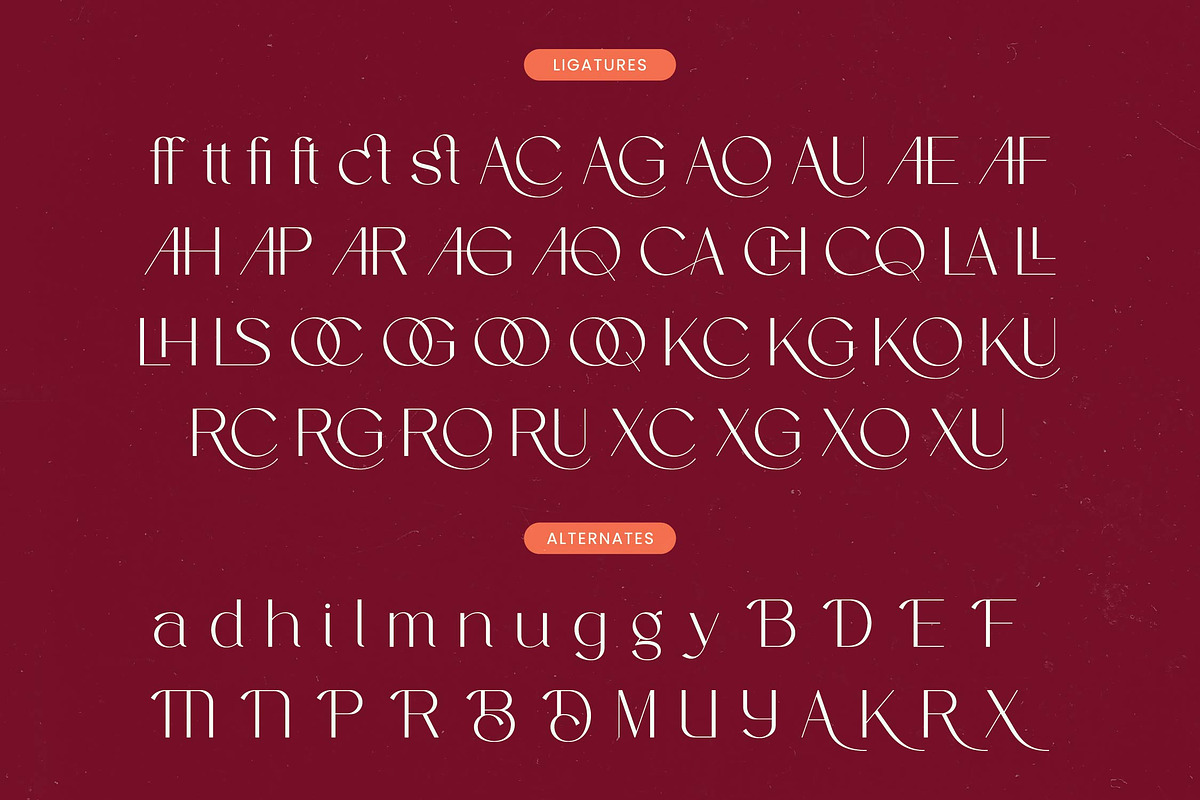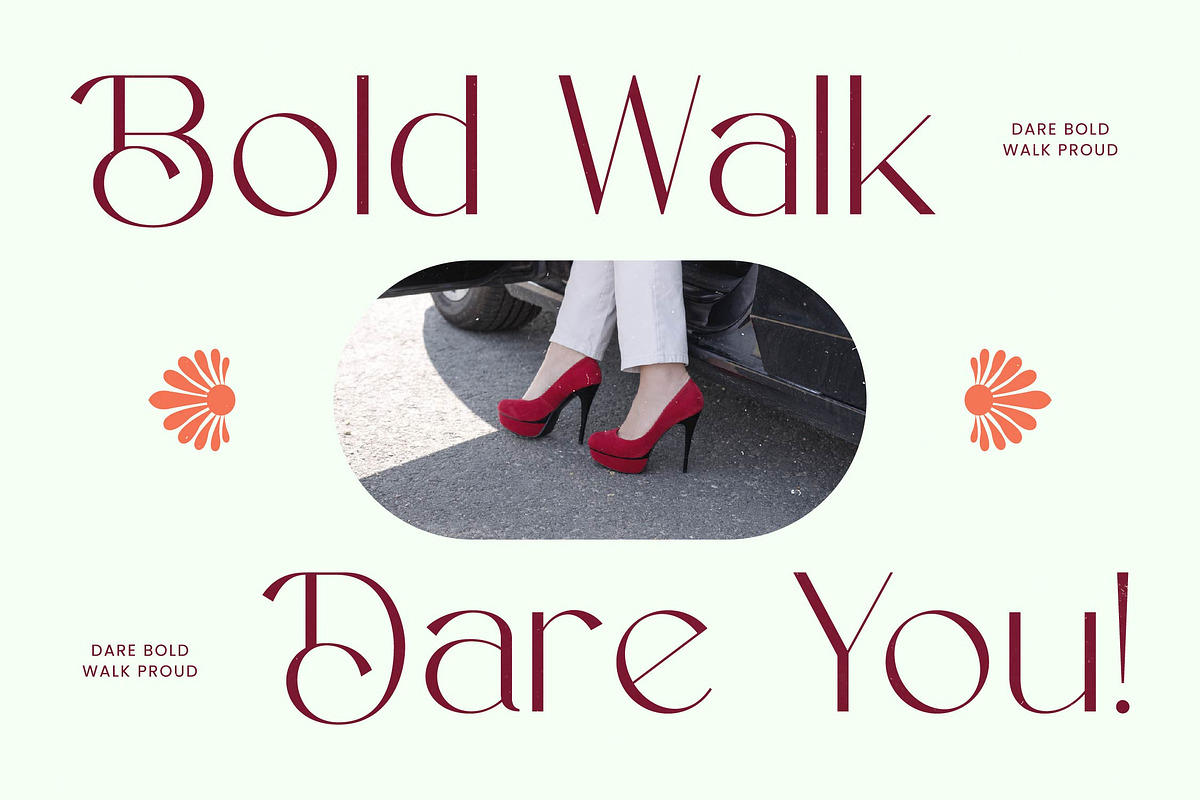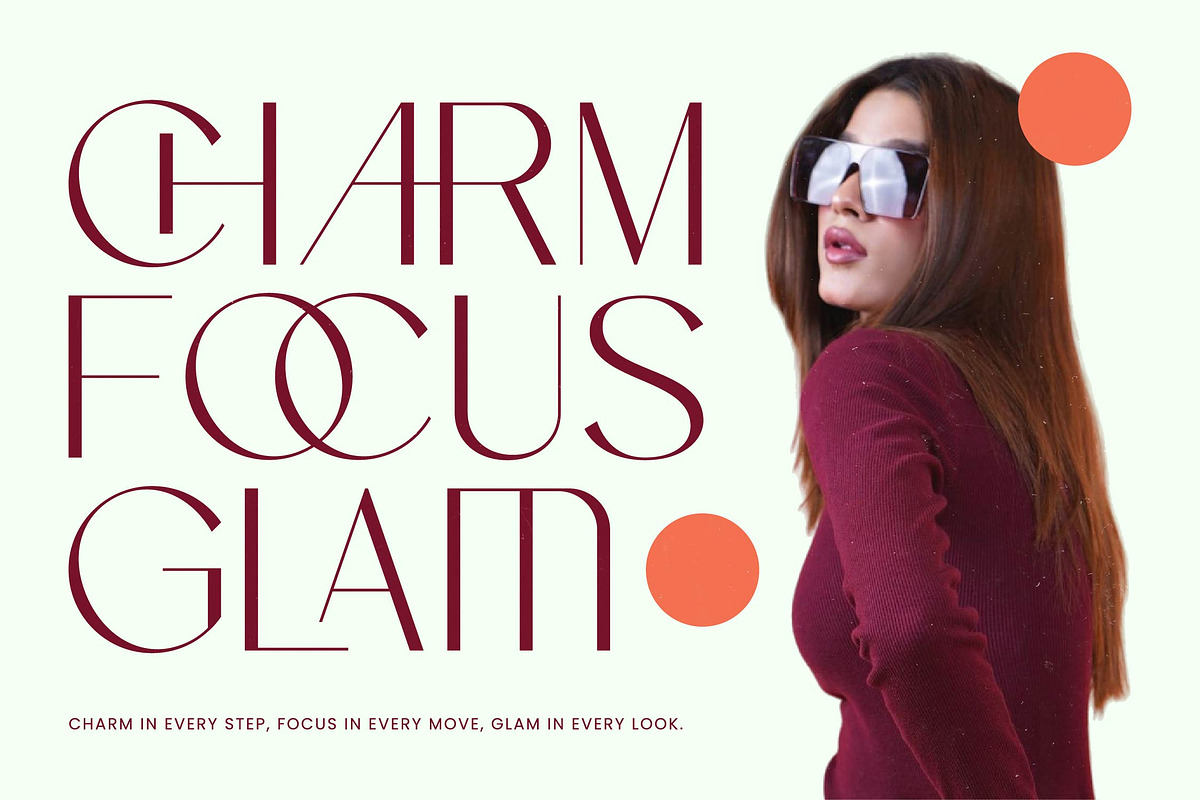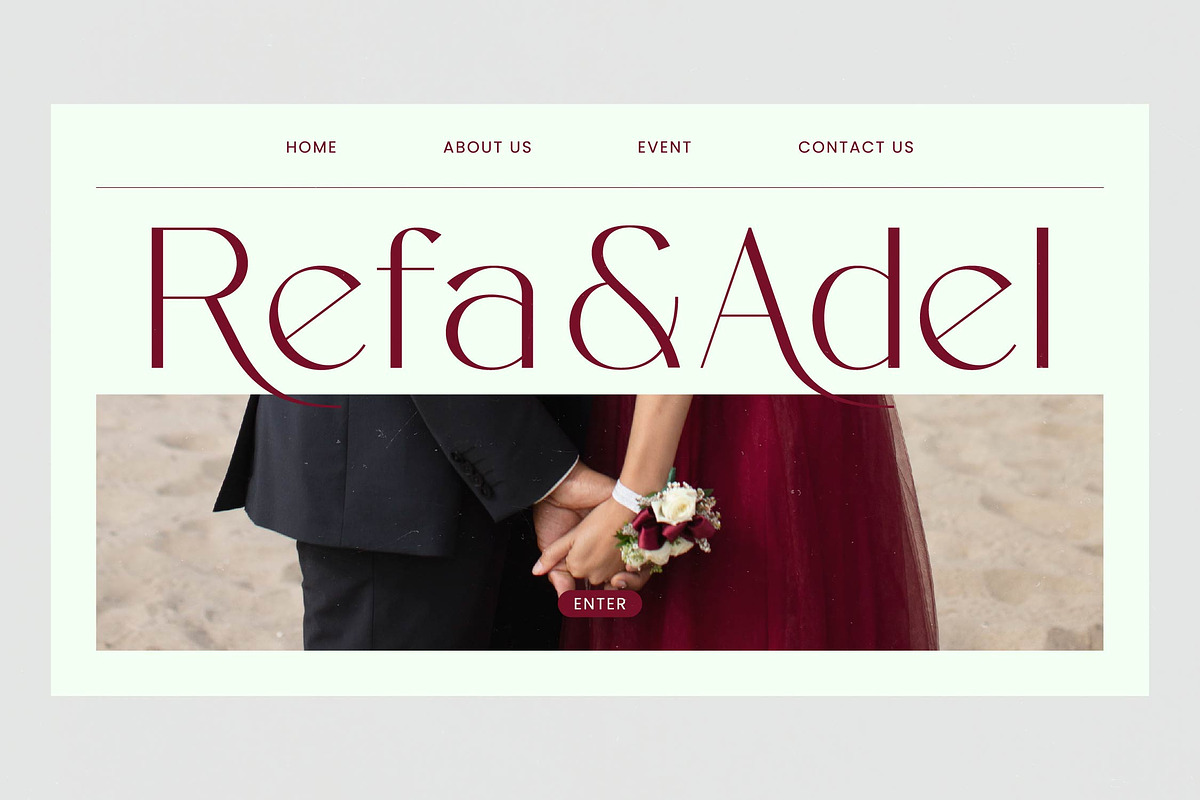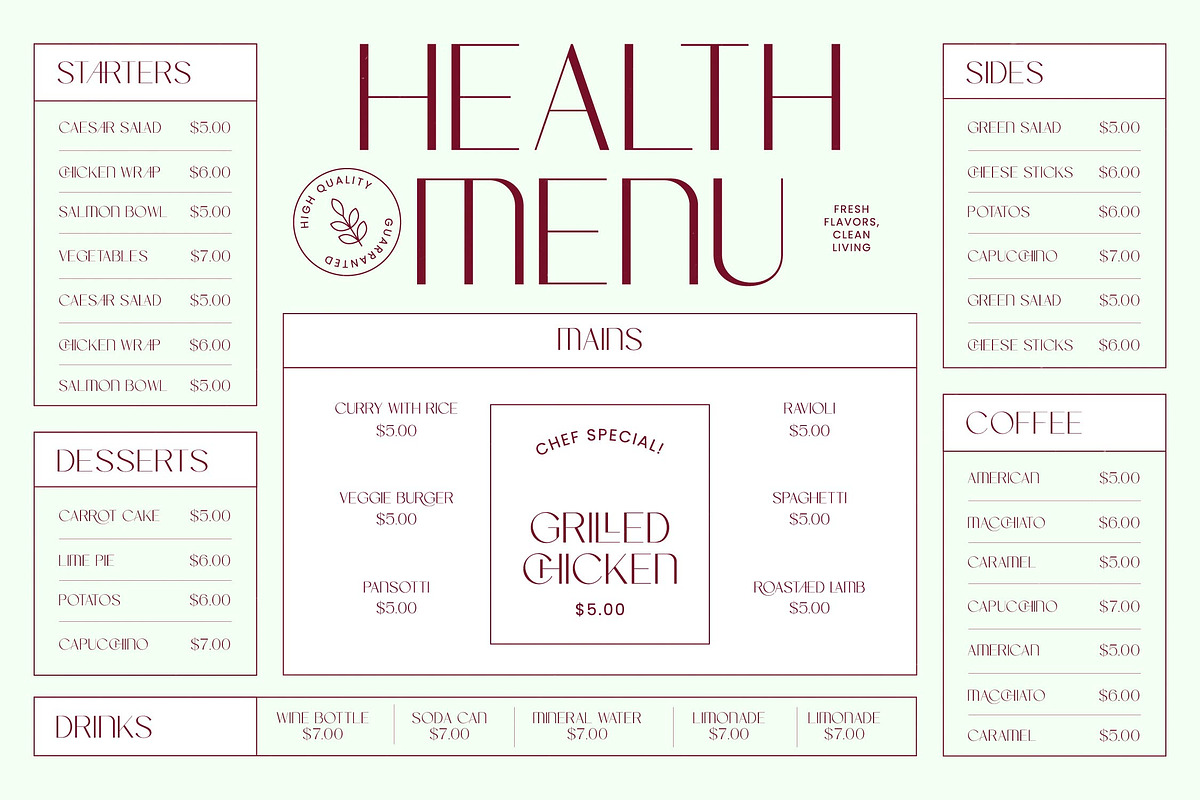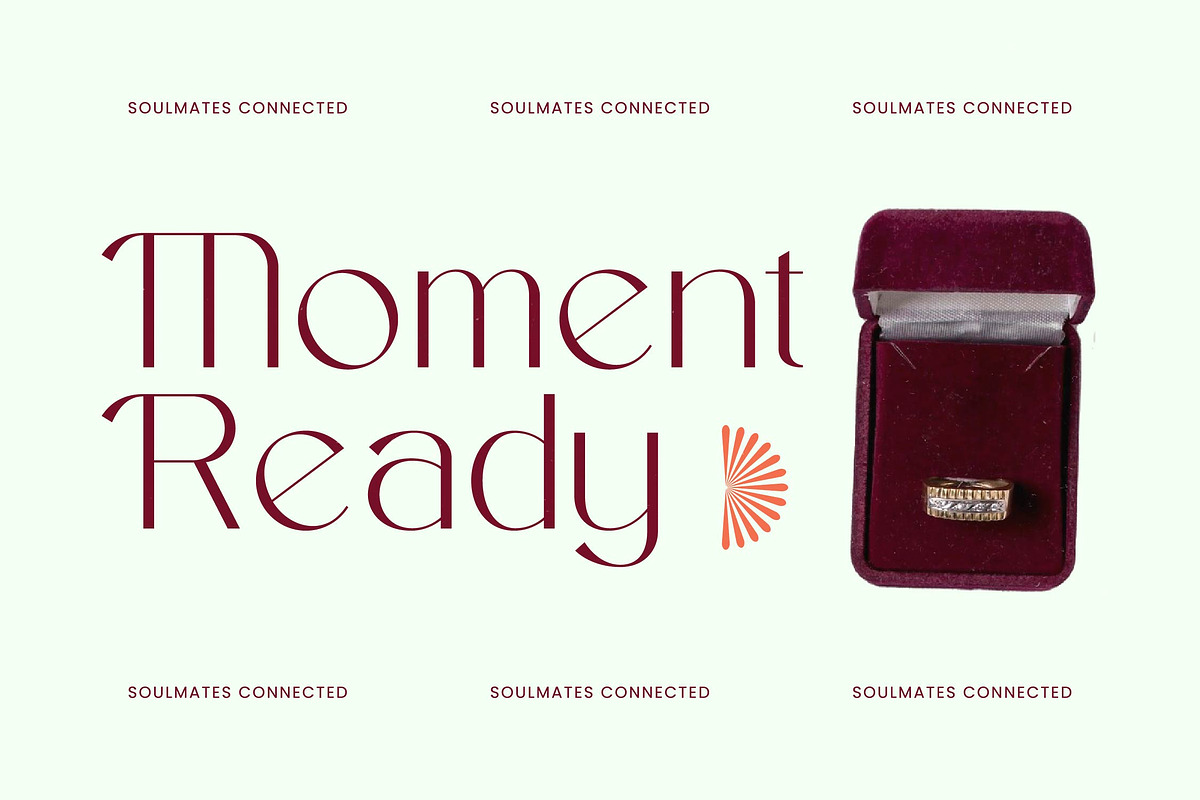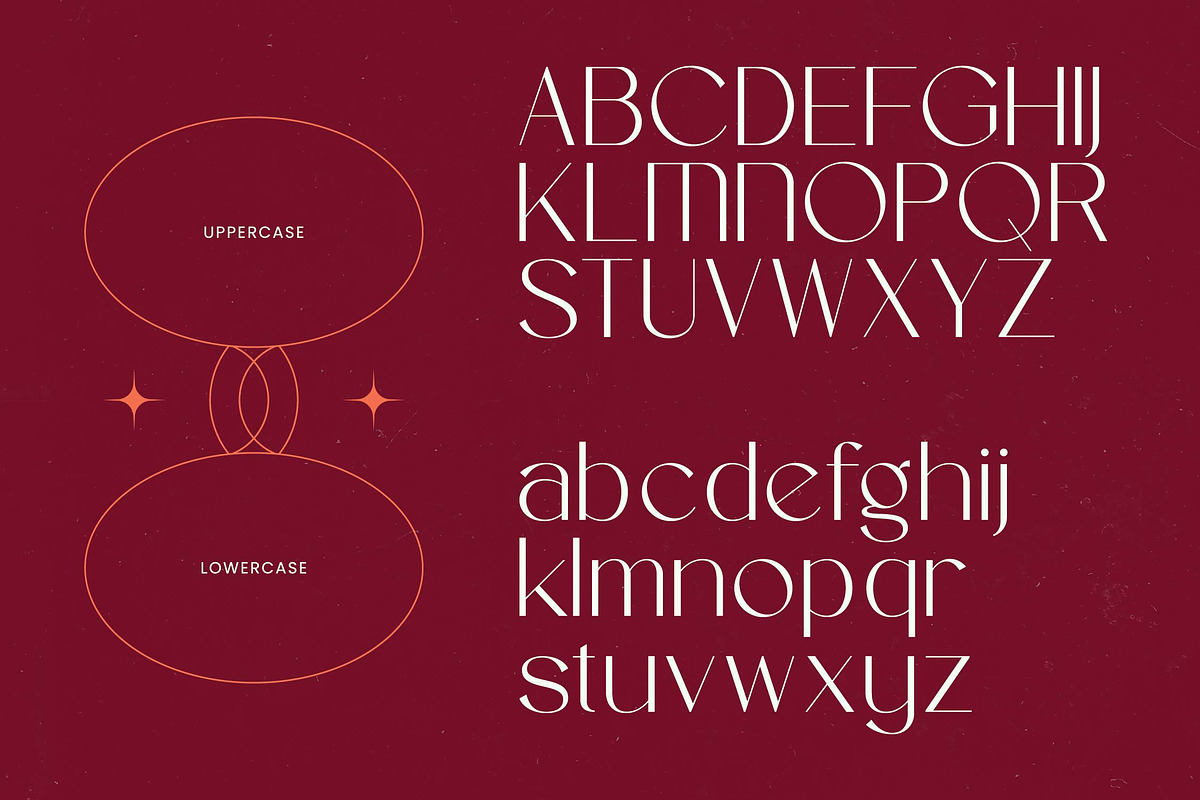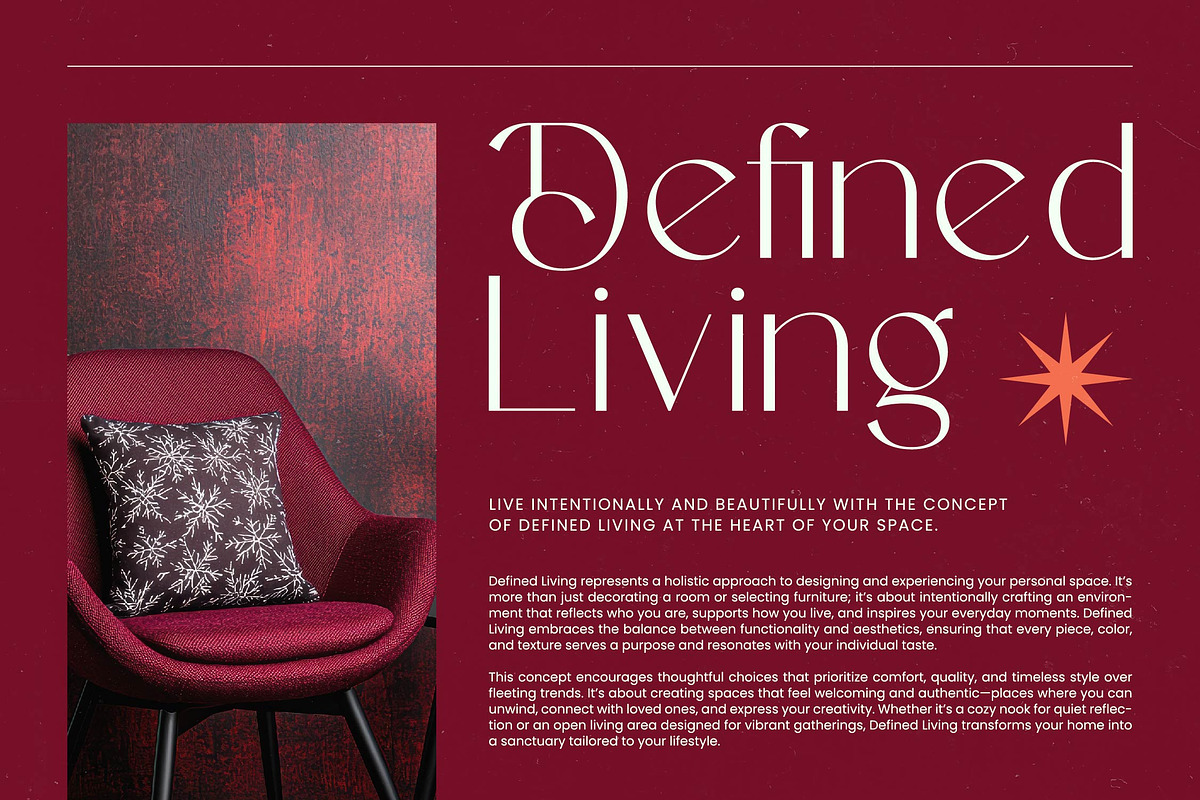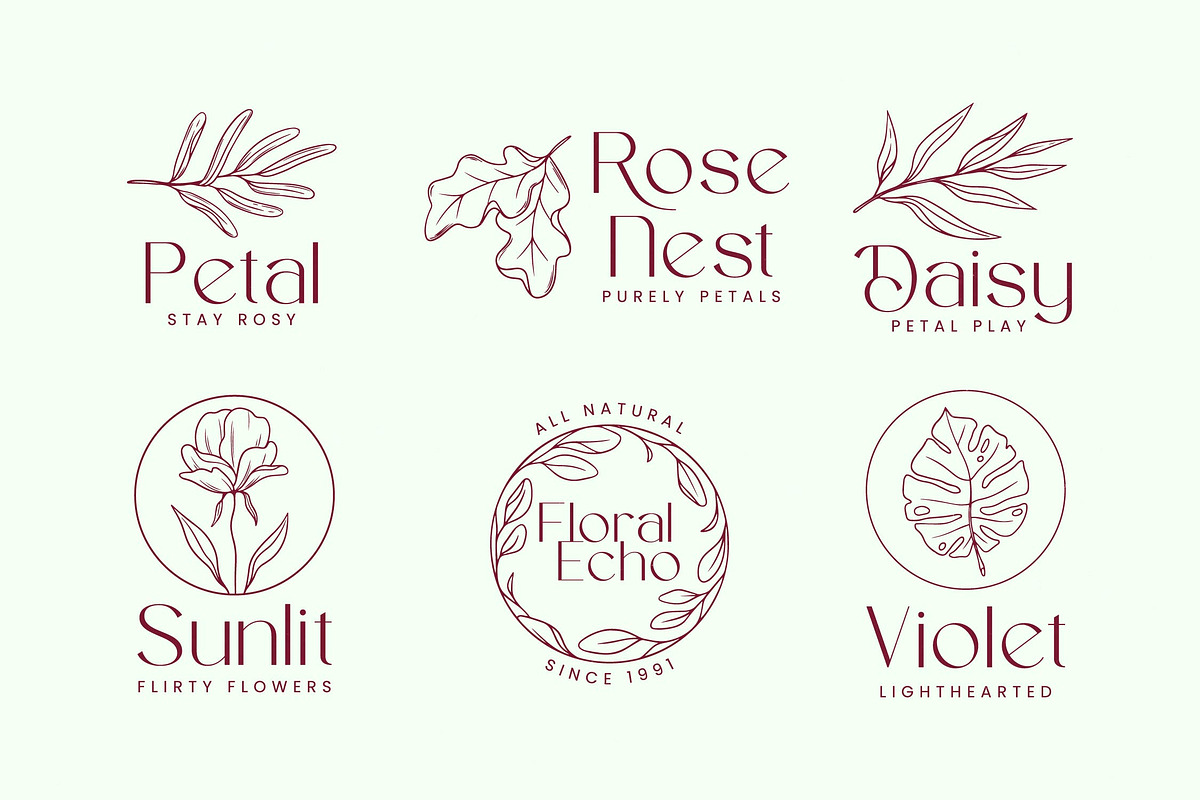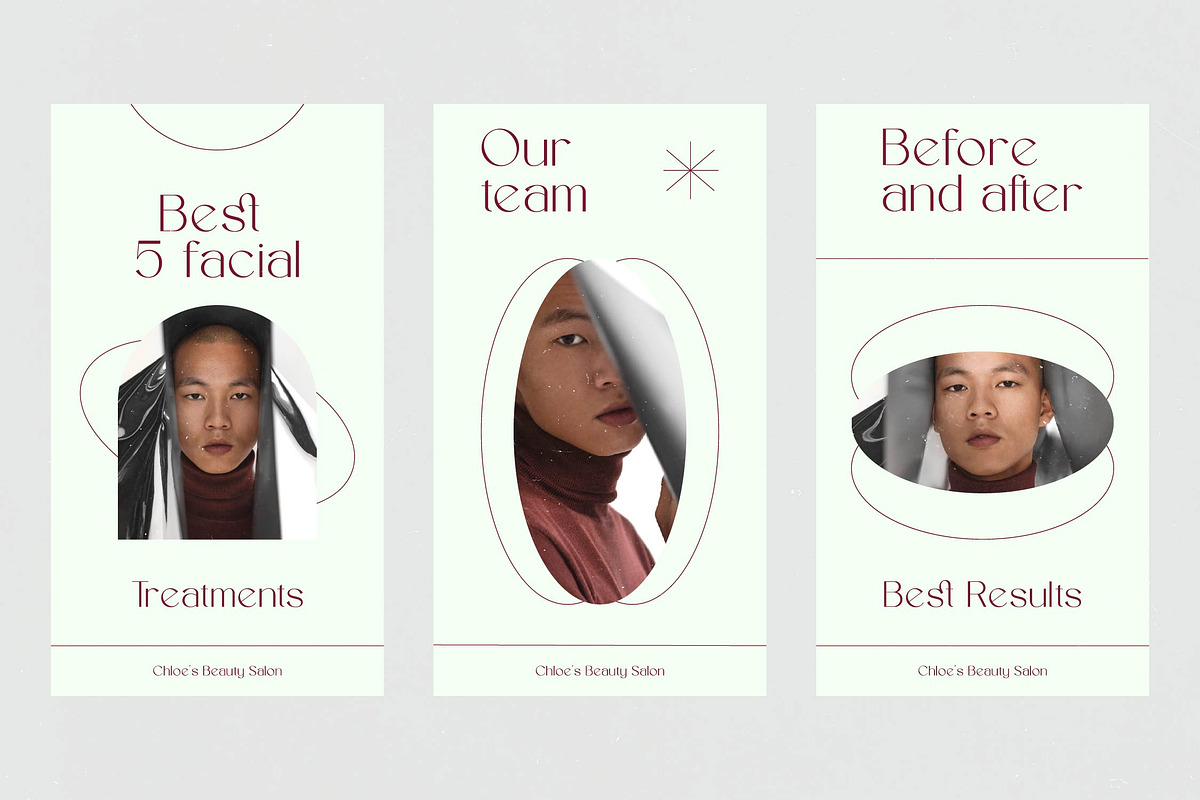
Marko Elegant Thin Display Font
Step into a world of refined sophistication with Marko Elegant, a typeface designed to breathe life into your most ambitious creative visions. This font transcends mere utility, offering a poetic balance of grace and contemporary precision for the discerning designer.
Drawing inspiration from the delicate interplay of light and shadow in high-fashion editorial spreads, this typeface captures a botanical-like elegance. Its elongated stems and sweeping curves evoke the organic beauty of a blooming flower, blending timeless class with a modern minimalist edge.
This modern serif display is the epitome of luxury typography, crafted to deliver an unforgettable branding impact across every medium. With its high-contrast serif details and slender silhouette, it functions as a premium editorial font that commands attention while maintaining a whisper-quiet elegance.
Perfectly aligned with the current modern serif trend, this typeface answers the call for character-driven typography in a sea of generic designs. It is the ideal choice for designers seeking editorial display fonts that feel both nostalgic and ahead of their time, bridging the gap between classic aesthetics and future-facing style.
From high-end logo design to delicate wedding stationery, the versatility of this font makes it a staple for any branding project. It excels in editorial layouts, luxury packaging, and the fast-paced world of fashion branding, ensuring your message is delivered with unparalleled poise.
This professional package is fully equipped with 41 ligatures and 28 alternates to provide endless customization options for your unique layouts. Including comprehensive multilingual support and a vast array of international characters, it also features decorative swashes that add a signature touch to your typography.
- Ligature 41 Alternate 28